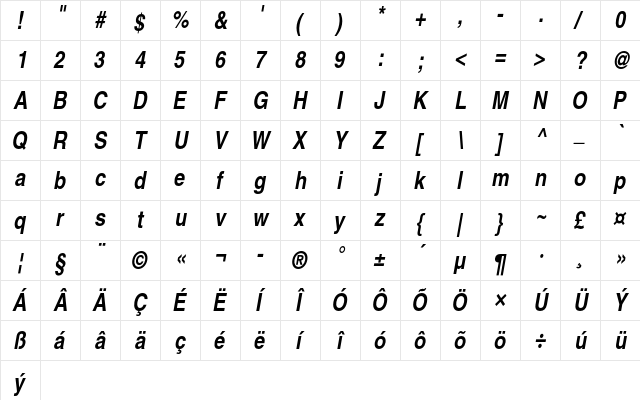
Helvetica CE Bold Narrow Oblique Font Preview
Design Context for Helvetica Typeface
Helvetica is a composed and adaptable typeface that performs quietly and consistently across a wide range of design contexts. The slanted form adds forward momentum and visual energy. Its bold stroke weight gives it real presence on the page. The condensed width makes it efficient for tight spaces without sacrificing legibility.
Pro Tip: Use Helvetica for emphasis, pull quotes, and subheadings where its slanted energy can add rhythm to the layout.